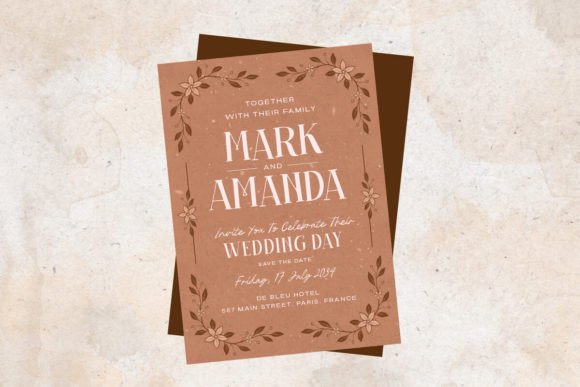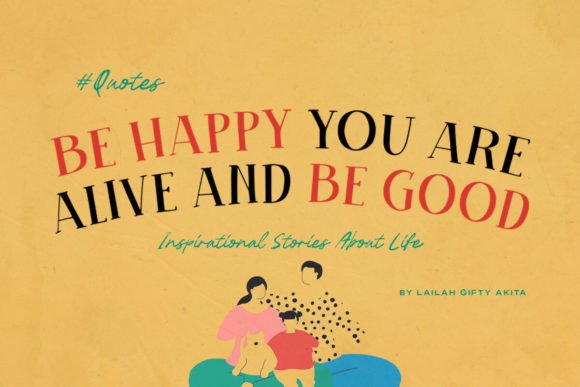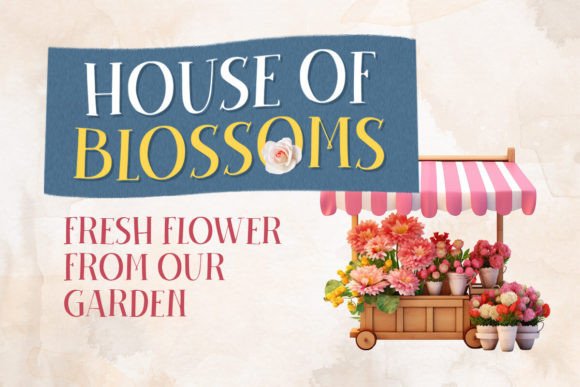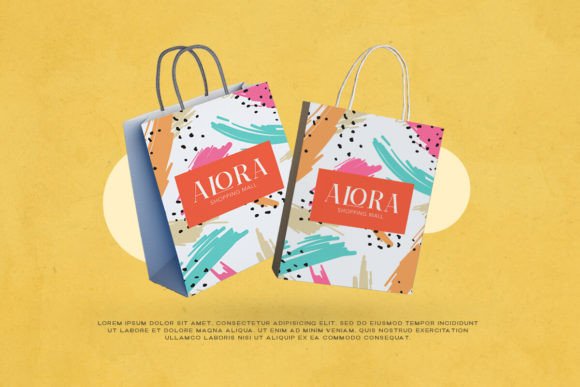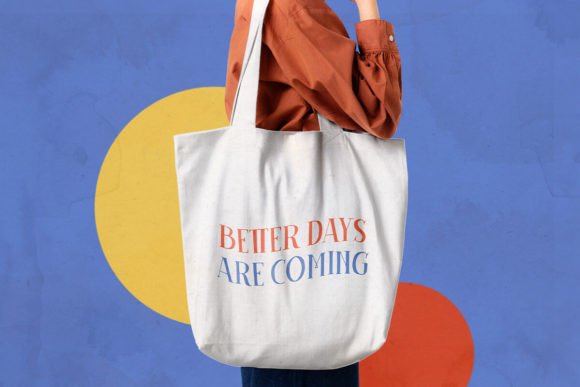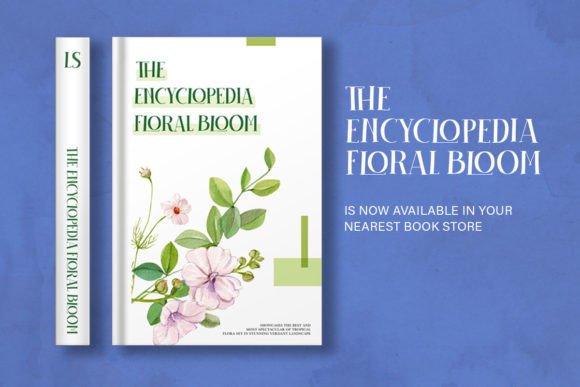
Introduction to Lighstone Font
Have you ever been stuck in a creative rut, staring at a blank canvas or screen, desperately searching for the perfect font to elevate your design? That’s where the Lighstone Font comes in – a sweet display font that’s sure to bring a touch of elegance and sophistication to your next project.
With its classic letterforms and playful ligatures, the Lighstone Font is a design resource that’s perfect for a wide range of applications, from logos and invitations to magazines and greeting cards. Whether you’re working on a high-end advertising campaign or a simple yet effective social media post, this versatile font is sure to make your creative project stand out.
Key Features of Lighstone Font
- High-quality design resource suitable for various creative projects
- Designed to be highly legible, making it perfect for body text and headings
- Includes a range of weights and styles for added versatility
- Supports various languages and characters, including Latin and Cyrillic scripts
Honest Review: Lighstone Font
As a designer, I’m always on the lookout for high-quality design resources to elevate my creative projects. Recently, I had the chance to work with the Lighstone Font, and I must say it’s been a game-changer. ✨ The font is clean, modern, and perfect for a wide range of applications – from digital design to print materials.
- What works well: ✨ Clean design, modern feel, versatile applications, free download, transparent background
- Limitations: ⚠️ Limited font styles available (only a few weights and styles), may not be suitable for complex or large-scale projects
Overall, I’m thoroughly impressed with the Lighstone Font. It’s a fantastic addition to any designer’s toolkit, and I’m excited to see how it will elevate my future creative projects.
Tips for Getting the Most Out of Lighstone Font
For the best results, use the Lighstone Font on a transparent background to create a clean and minimalist design. You can also experiment with different font sizes and colors to add depth and visual interest to your design.
The Lighstone Font is perfect for a variety of design projects, including brochures, business cards, and social media graphics. Its high-quality design and transparent background make it an ideal choice for designers who want to create a professional and eye-catching design resource.